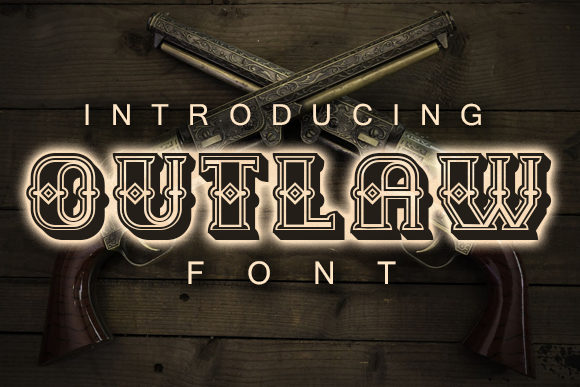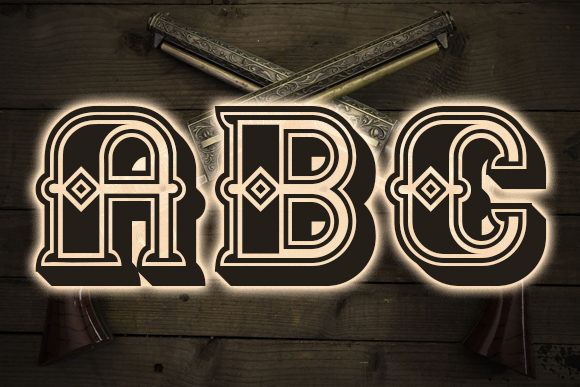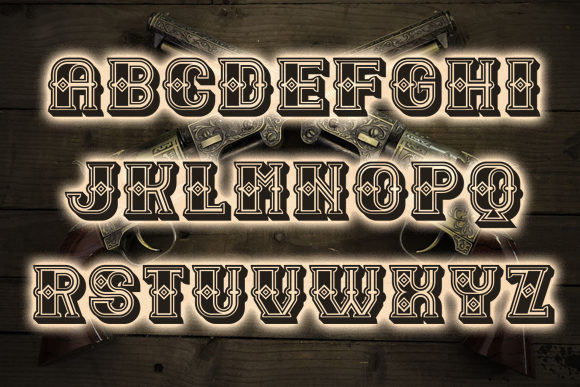
Outlaw Font: A Bold Western Display Font for Posters & Branding
About the Outlaw Font
We are excited to introduce Outlaw Font, a must-have typeface for any serious designer. Outlaw is a bold decorative font defined by a western look. It will look great on every poster, banner, or print you wish to create.
Outlaw’s bold, decorative style makes it ideally suited for headlines, posters, and branding projects requiring a strong, Western-themed aesthetic. It excels in short impactful text and works well on packaging for products emphasizing ruggedness or adventure. However, its decorative nature makes it unsuitable for body text or UI elements where readability is paramount. Extended use would hinder legibility.
Its rebellious personality pairs well with clean sans-serif fonts like Montserrat or Open Sans for contrast and balance, creating a modern yet western feel. For a more vintage-inspired look, consider pairing Outlaw with a classic serif like Playfair Display. Avoid pairing it with other highly decorative fonts, as this can result in visual overload.
Outlaw’s core personality is bold and rebellious, conveying a sense of strength and rugged individualism. This makes it a powerful choice for brands associated with the outdoors, whiskey, or other products aiming for an edgy, Western-inspired feel.